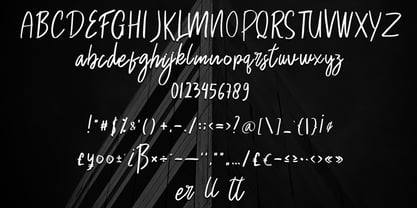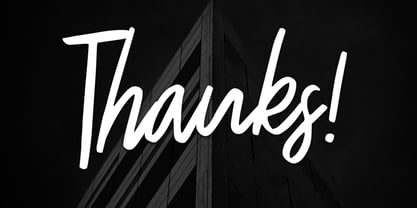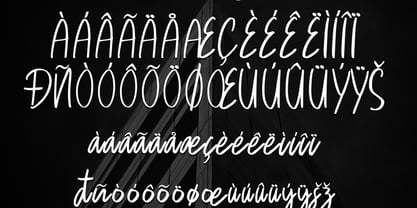
Bergly
by Skiiller Studio
The Bergly Font Family was designed by Irfan Mahmudin and published by Skiiller Studio. Bergly contains 1 styles.
Bergly is a modern handwritten script font with smooth strokes and a clean, contemporary feel. Its natural flow and balanced curves create a stylish yet minimal look, making it perfect for logos, branding, quotes, posters, social media designs, and modern editorial layouts. This font delivers a strong visual presence while maintaining elegance and readability.
Designers: Irfan Mahmudin
Publisher: Skiiller Studio
Foundry: Skiiller Studio